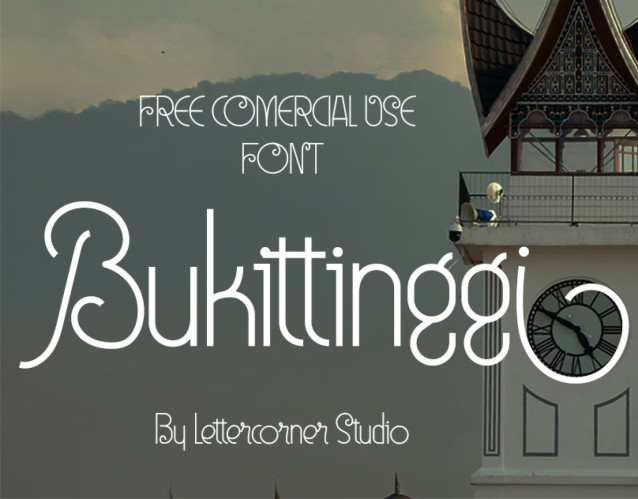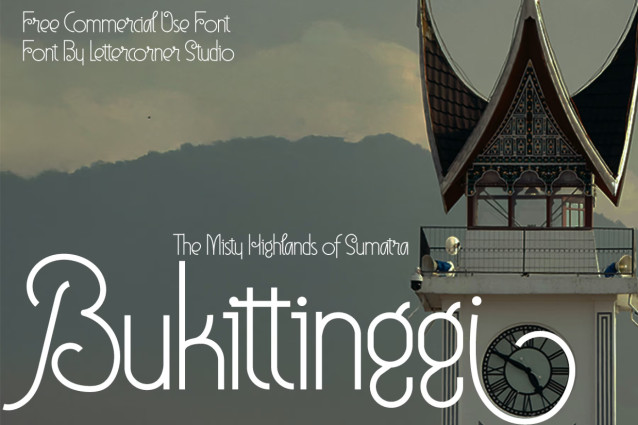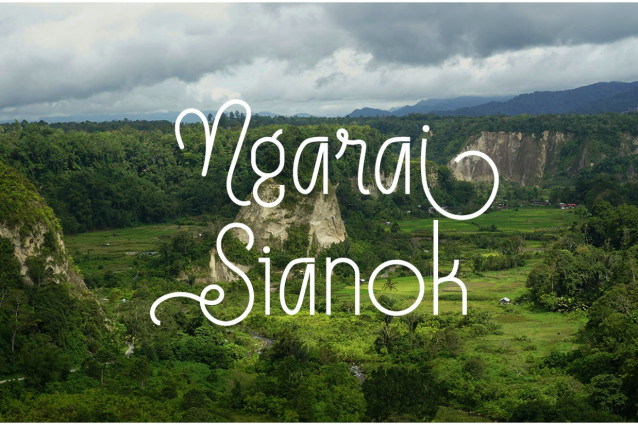
Bukittinggi Font
Bukittinggi — Highland-Inspired Script Typeface
There are places where time doesn’t simply pass—it lingers in the mist, settles over the hills, and echoes from a clock tower that has watched over a city for a century. Bukittinggi is inspired by the highland spirit of West Sumatra, where cool mountain air, winding ravines, and Minangkabau heritage continue to shape the rhythm of everyday life.
Designed with flowing, handwritten strokes and delicate looping curves, Bukittinggi captures the quiet elegance of a mountain town while carrying a personal, intimate touch. Its slender forms echo the winding roads that trace the hillsides, giving the typeface a sense of movement that feels both graceful and grounded.